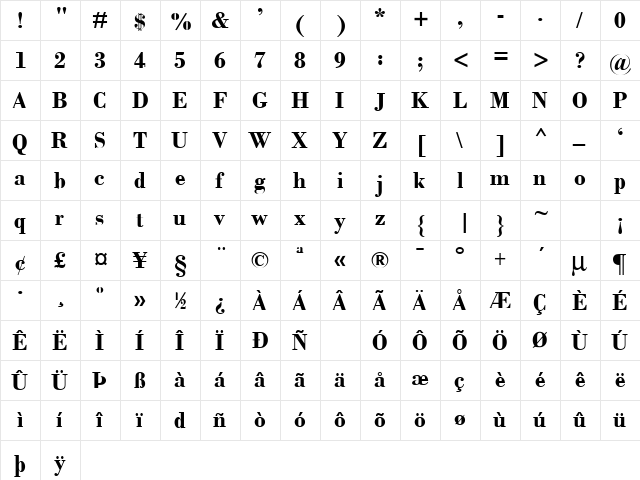
SanteeBold Normal
Design Context for SanteeBold Typeface
SanteeBold is a composed and adaptable typeface that performs quietly and consistently across a wide range of design contexts. The heavy weight commands attention and anchors typographic hierarchies.